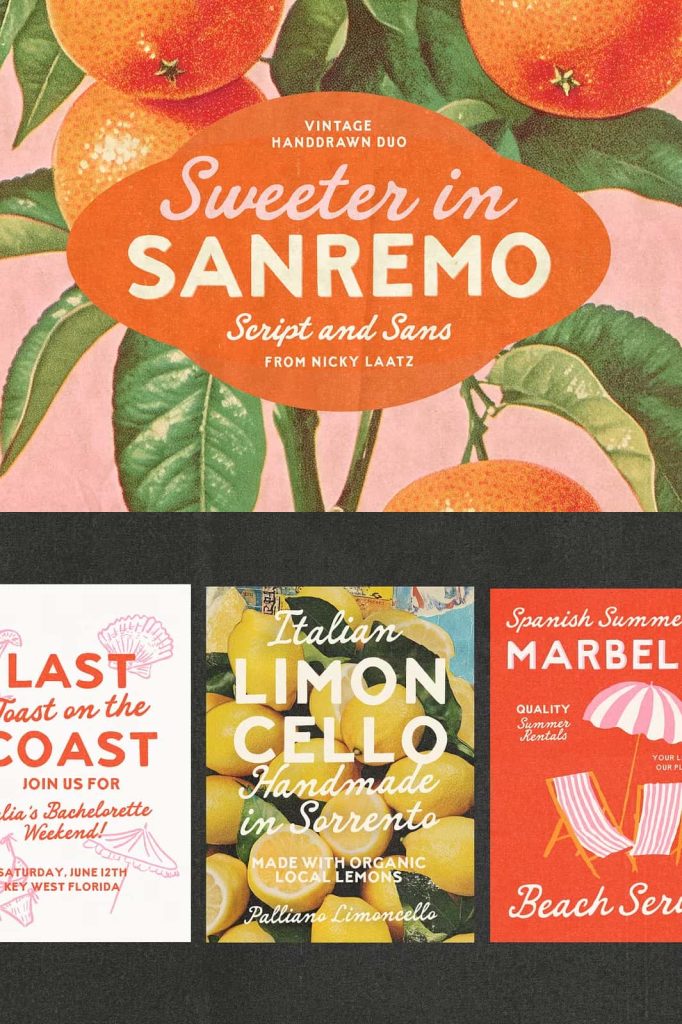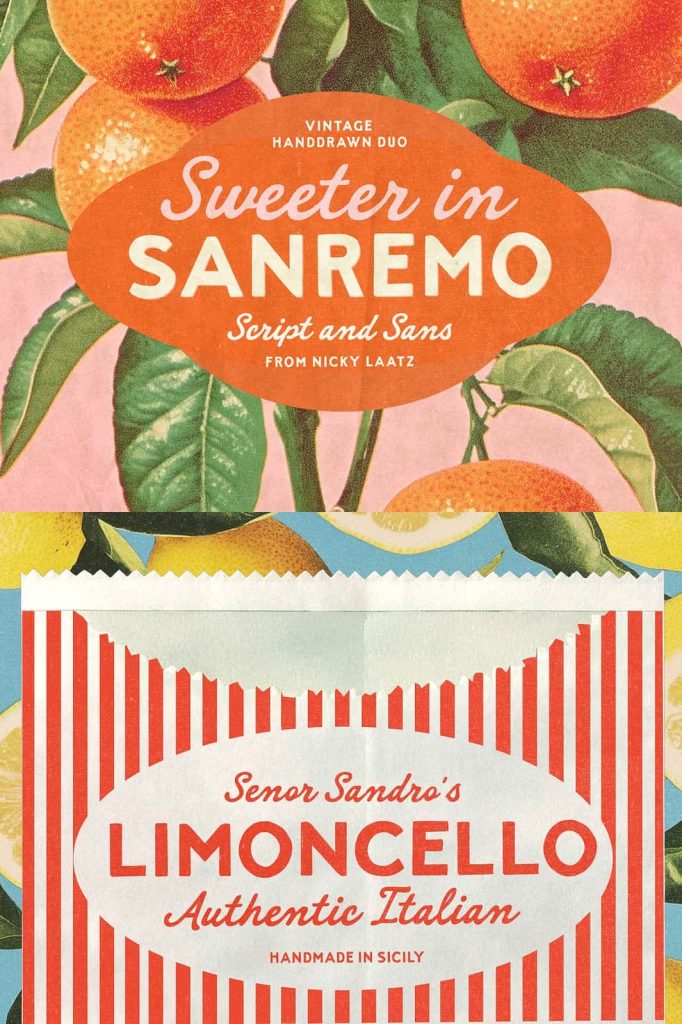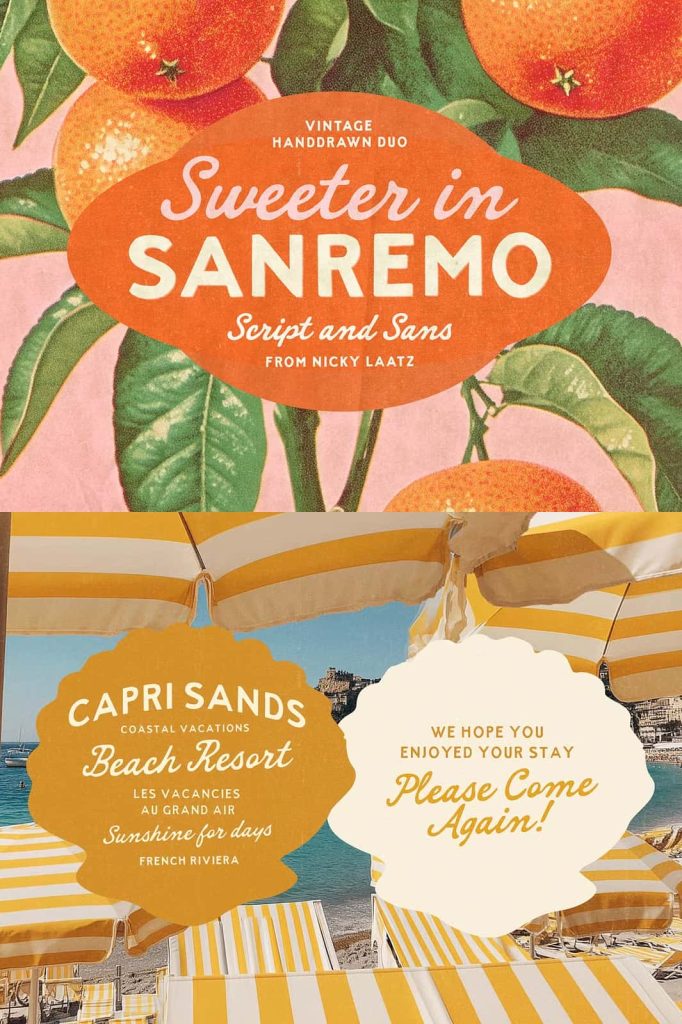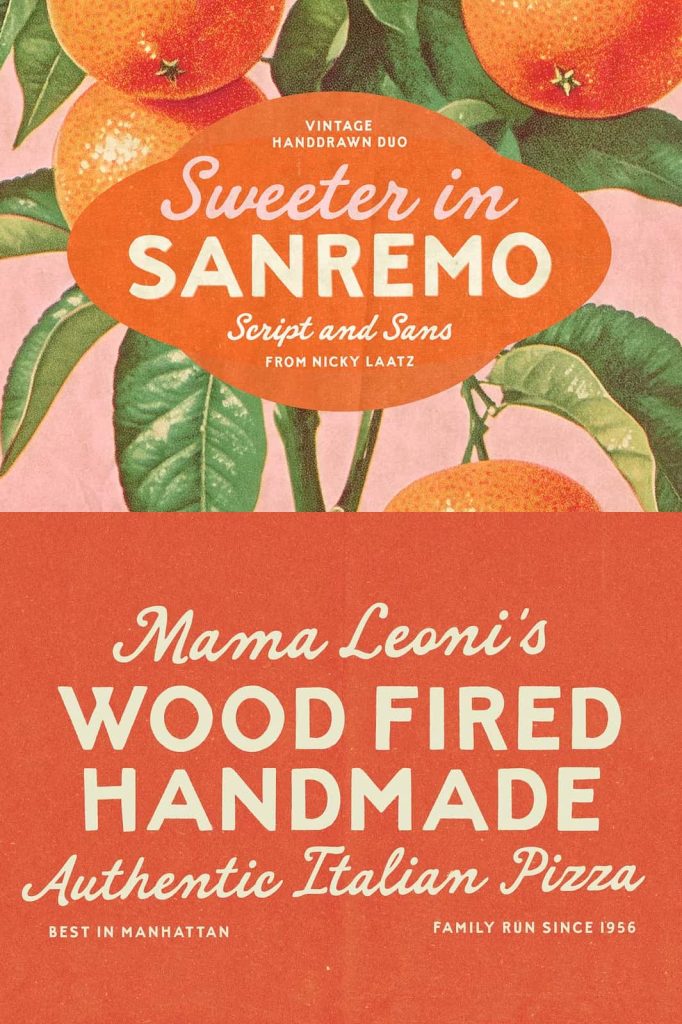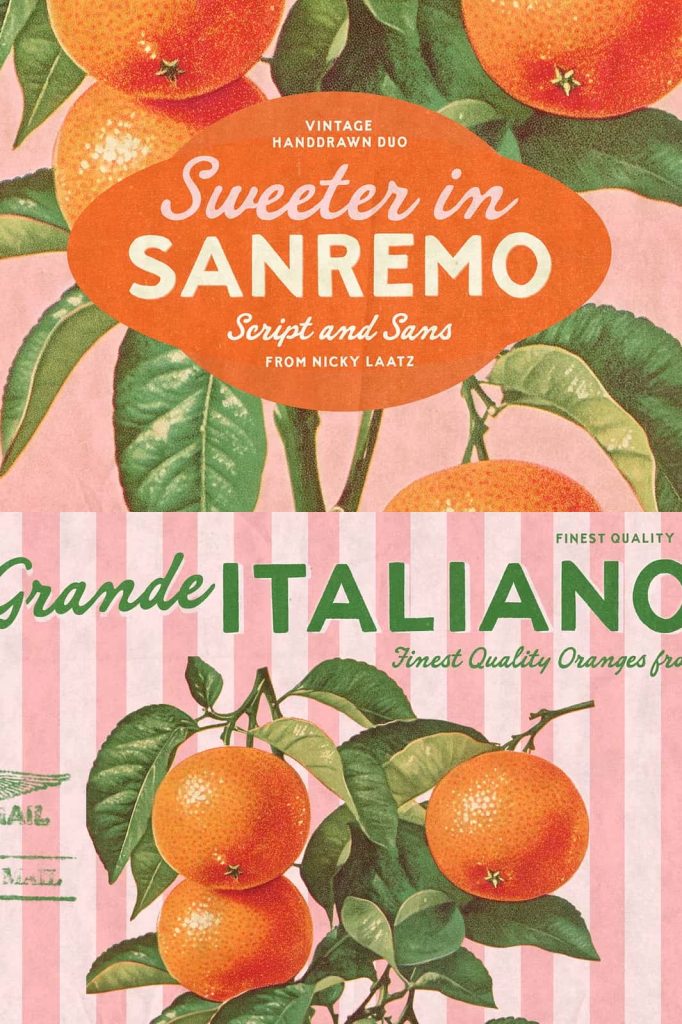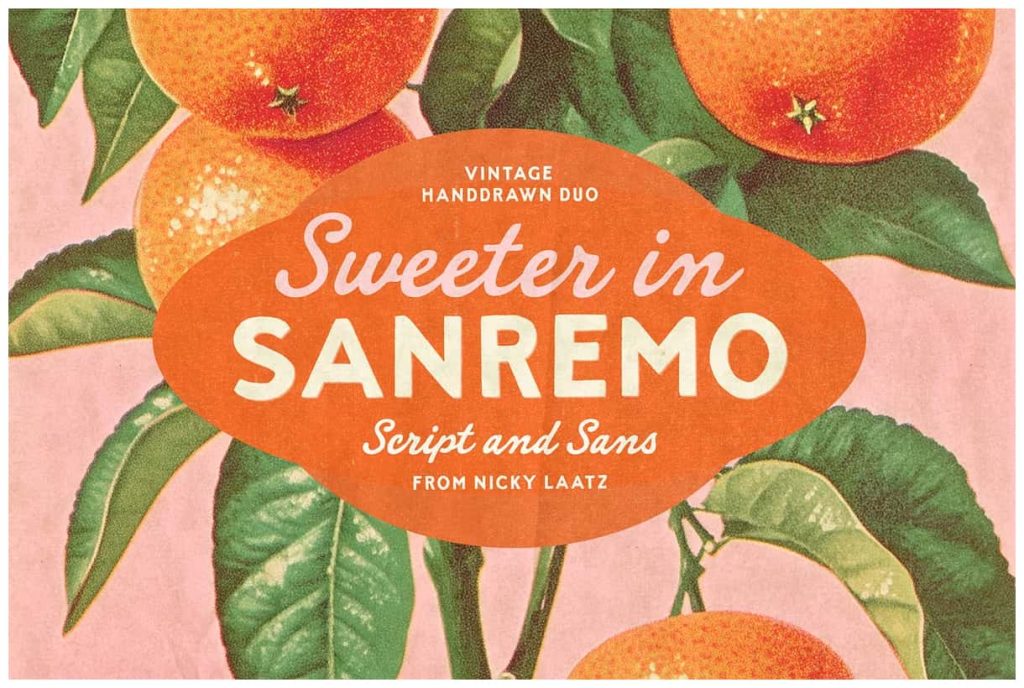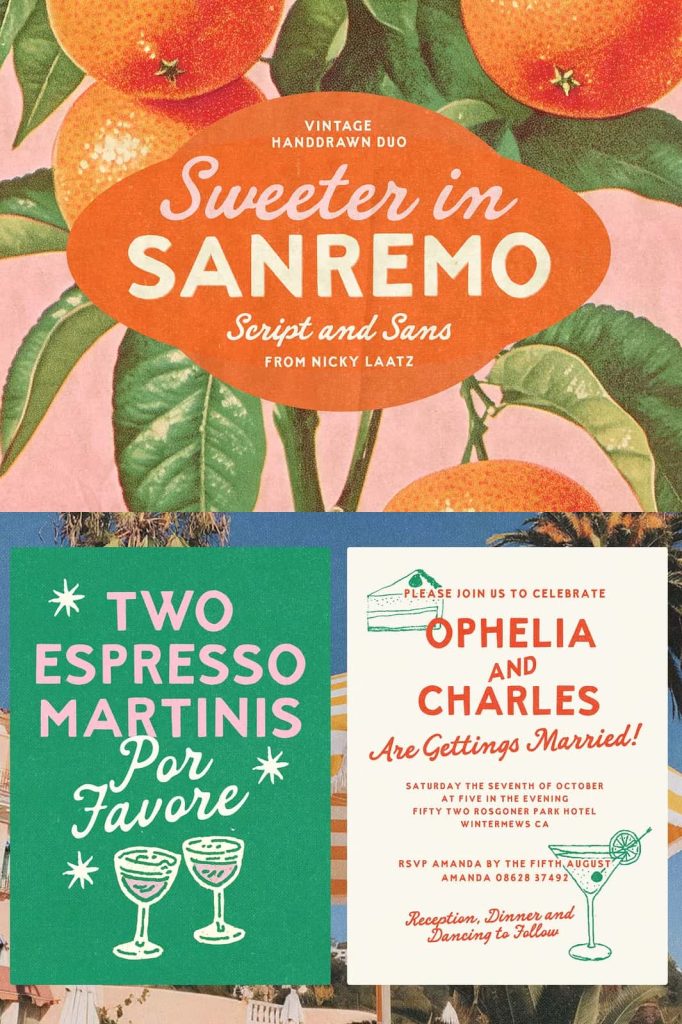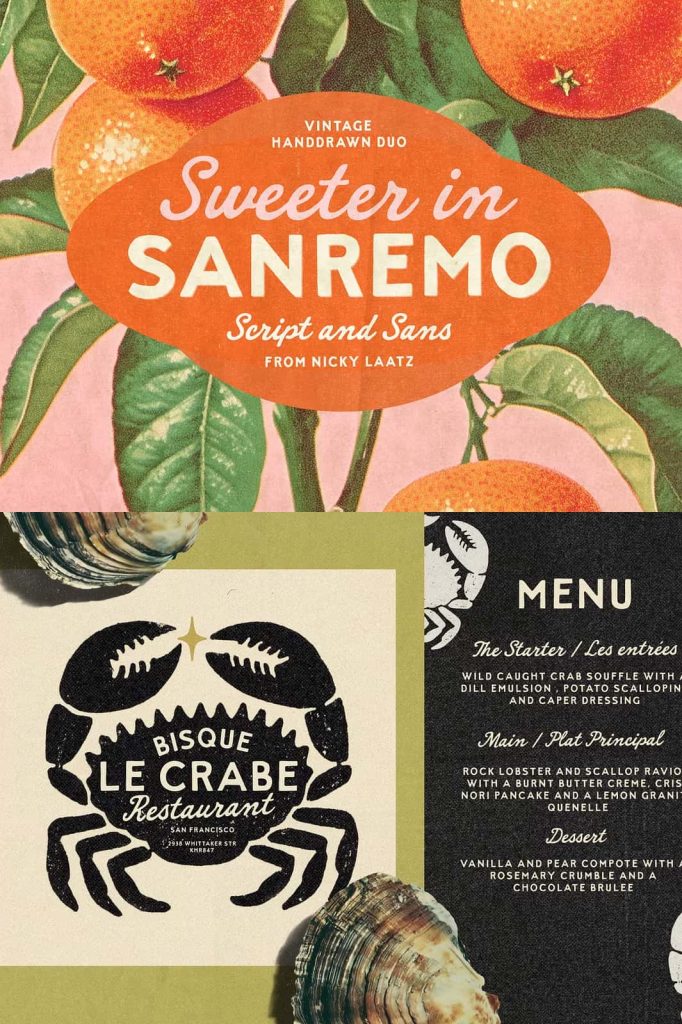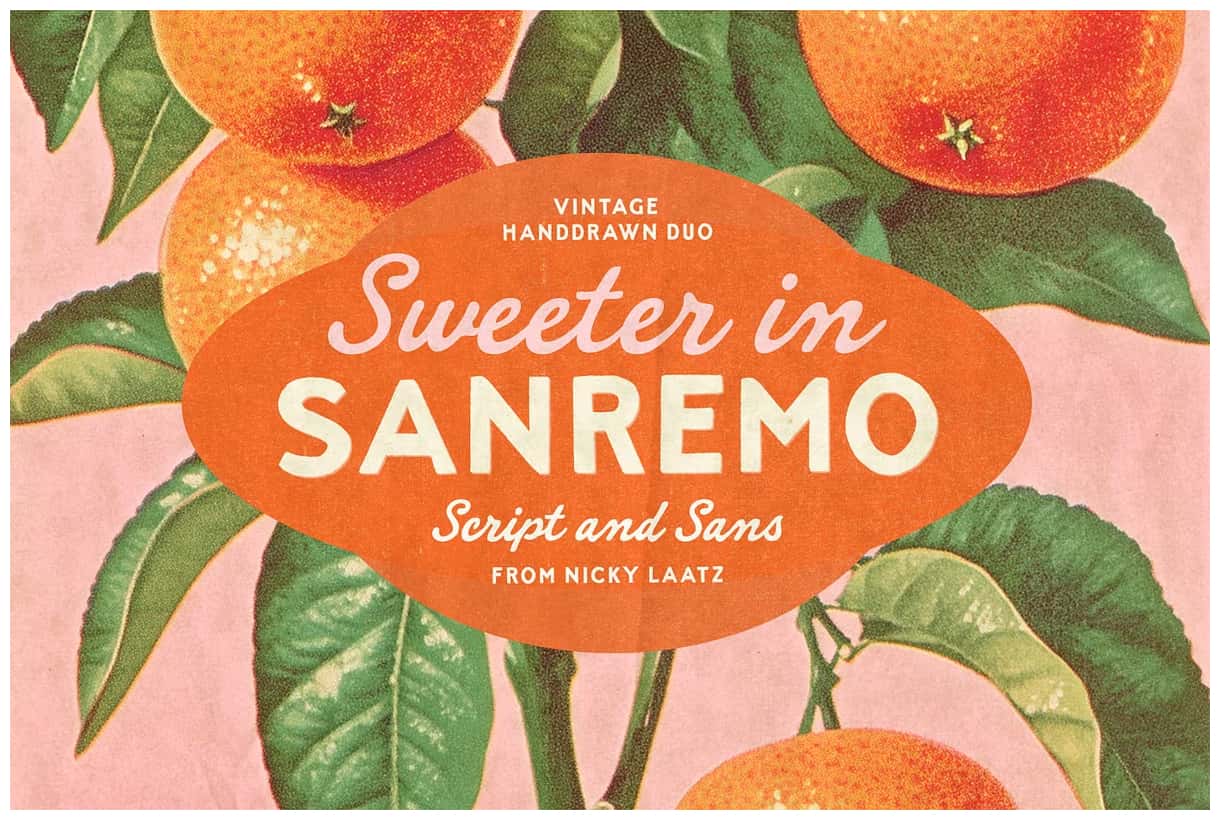
Say hello to Sanremo! The duo was inspired by vintage imperfect handprinted signage and old matchbook covers from the 40s and 50s – bringing in a modernity with a vintage charm. Sanremo Duo consists of two font styles : a confidently bold, hand-drawn all-caps sans serif that commands attention, and a smooth, handwritten script that adds a cheeky wink of warmth. Whether it’s listing cocktail ingredients or adding a playful tagline, this dynamic duo knows how to make words pop — and fizz!